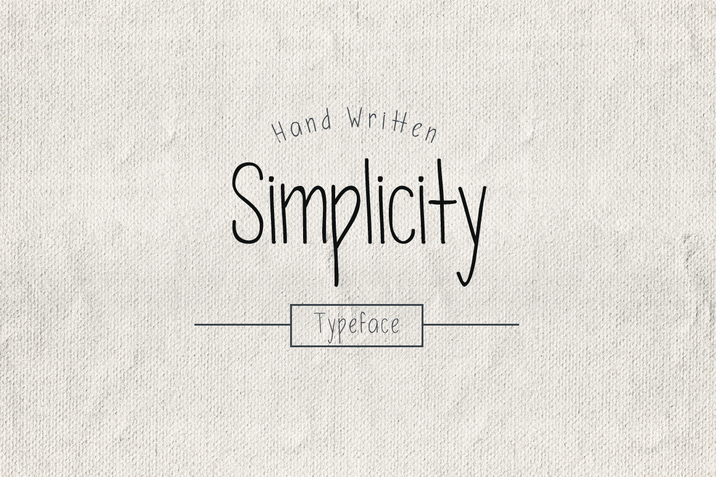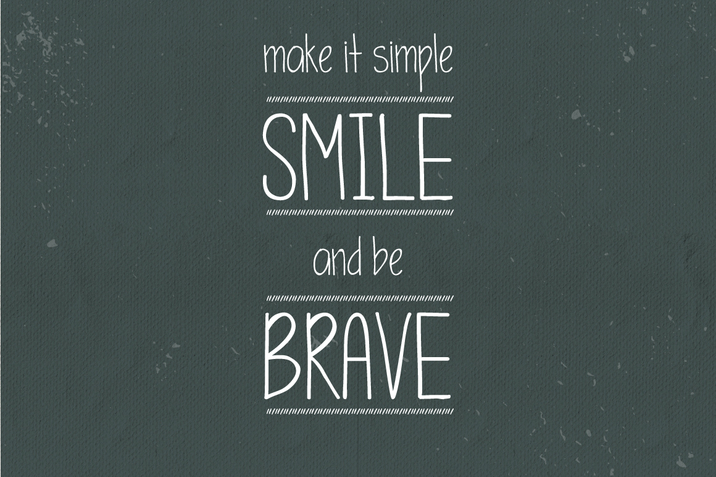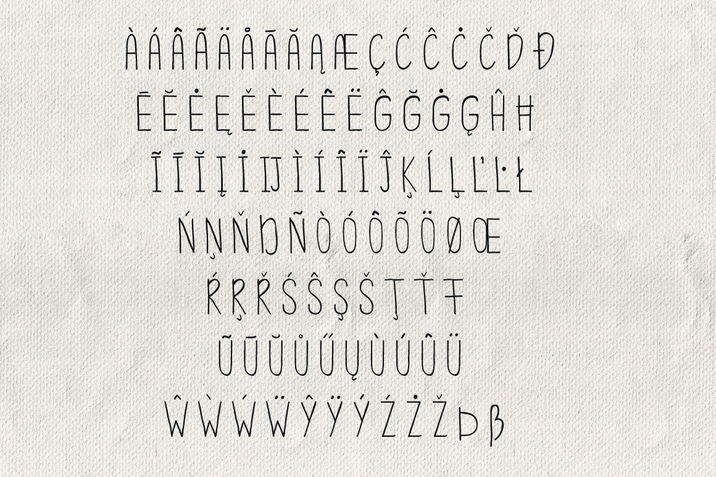
Name : Simplicity Typeface Files : File Size : 6.57 MB Web Font : Yes Simplicity is a hand written font - simple and elegant for adding this hand look to your projects. Gives a projects a touch of a personal handy feel. What's inside: OTF font file Woff font file PDF help file Support for my fonts: I am always adding features, and improving letterforms. Please let me know if there is a feature you'd like to see or an issue that needs to be fixed. Updates to my fonts will always be free to existing owners. Thank you! Link for more information: https://creativemarket.com/IvanirAnna/293270-Simplicity-Typeface